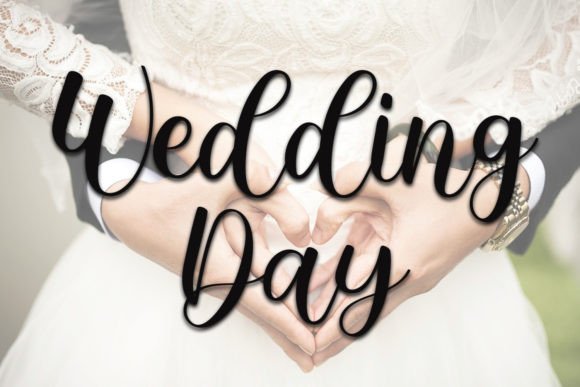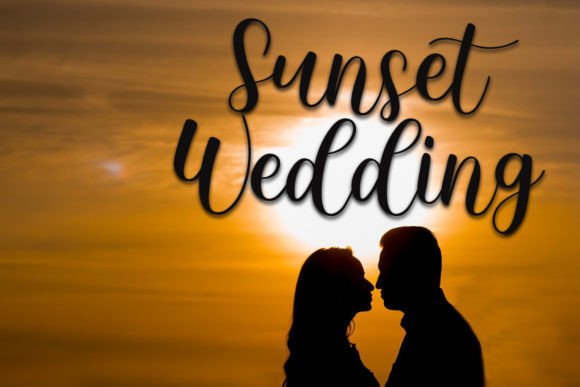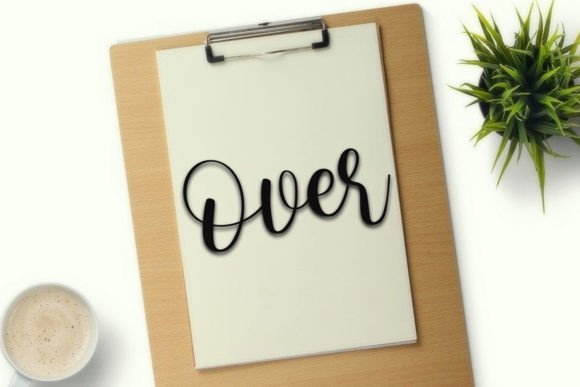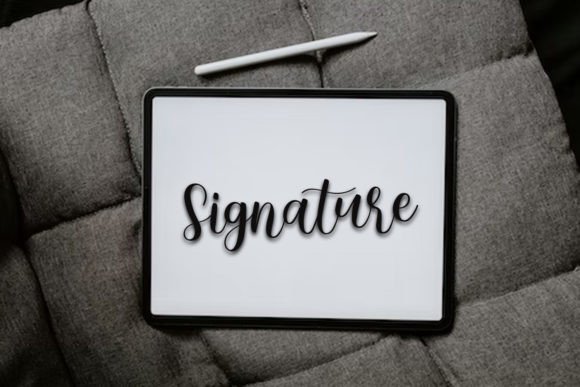
The Birth of a Timeless Classic: Unveiling the Enchanting Babe Font
Have you ever found yourself doodling in a notebook, trying to capture the perfect handwritten look for a special project? Maybe it’s a wedding invitation, a heartfelt thank-you note, or a custom logo for a client. Whatever the case, we’ve all been there – searching for that elusive, elegant touch that sets our designs apart. And then, suddenly, it hits you: the perfect font.
Enter Babe Font, the charming and sophisticated typeface that has captured the hearts of designers everywhere. With its versatility and timeless charm, Babe Font is the perfect addition to any project, from wedding invitations to business cards and everything in between. Whether you’re a seasoned pro or just starting out, this beautiful font is sure to elevate your designs and leave a lasting impression.
Babe Font Key Features
- Font Style: Display Font, designed for headlines and titles
- Unique Characteristics: Features a unique, handwritten style with a touch of elegance and sophistication
- Language Support: Supports multiple languages, including Latin-based scripts and some Cyrillic and Greek characters
Babe Font Review
At first glance, the Babe Font seems like a sweet and feminine addition to any design project. Here’s what I like about it: ✨ It’s elegant and refined, making it perfect for wedding invitations, baby announcements, and other special occasions. ✨ The font is highly legible, even at smaller sizes, which is a must for any professional design. ✨ The overall aesthetic is sophisticated and timeless, allowing it to fit seamlessly into various design styles.
However, there are some limitations to consider: ⚠️ The font might feel a bit too sweet and childish for more mature or serious projects. ⚠️ Some users may find the font’s curves a bit too rounded, which can make it harder to read at certain angles. ⚠️ The font family is relatively small, with only a few weights and styles available.
Overall, I think the Babe Font is a great choice for designers looking to add a touch of elegance and sophistication to their projects. While it may not be the most versatile font, it’s perfect for special occasions and events where a more refined aesthetic is desired.
Here are some potential use cases for the Babe Font:
- Baby announcements and nursery decor
- Special occasion decorations and graphics
- High-end fashion and beauty branding
Babe Font Practical Application Guide
Use the Babe Font to add a touch of elegance and sophistication to your designs. It pairs well with bold, sans-serif fonts. Experiment with different font sizes and styles to create visual interest.
The Babe Font is ideal for wedding invitations, luxury brand logos, and high-end marketing materials. It’s also great for creating a vintage or retro aesthetic.
Alternatives to “Babe Font” for Designers
Alex Brush is a beautiful, elegant script font that works well for creating a luxurious and sophisticated look. It’s ideal for use in branding, packaging, and editorial design. Compared to Babe Font, Alex Brush has a more refined and polished feel, making it suitable for high-end designs.
Great Vibes is a modern, handwritten font that’s perfect for adding a touch of playfulness and creativity to your designs. It’s great for use in social media, advertising, and digital marketing campaigns. While Babe Font has a more feminine and delicate feel, Great Vibes has a more casual and laid-back vibe.
Carolyna Pro is a versatile, modern script font that’s suitable for a wide range of design projects. It’s ideal for use in branding, packaging, and digital design. Compared to Babe Font, Carolyna Pro has a more contemporary and edgy feel, making it suitable for modern and trendy designs.
Ostrich Sans is a modern, sans-serif font that’s perfect for creating a clean and minimalist look. It’s great for use in digital design, branding, and editorial design. While Babe Font has a more elegant and sophisticated feel, Ostrich Sans has a more modern and straightforward vibe.
Creating with Babe Font
Babe’s Whimsical Menu
Babe’s Whimsical Menu is a playful and interactive food menu design that incorporates the Babe Font.